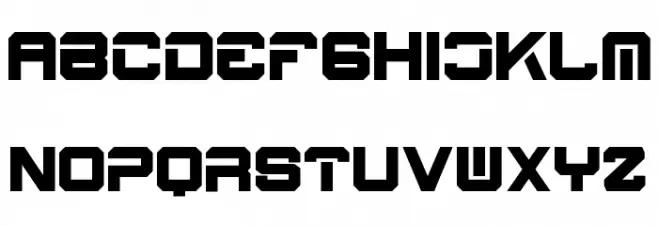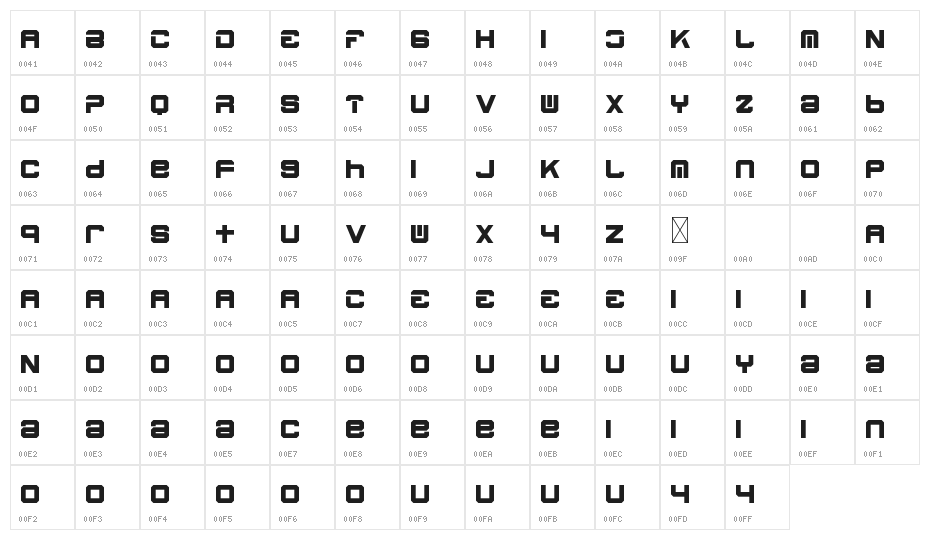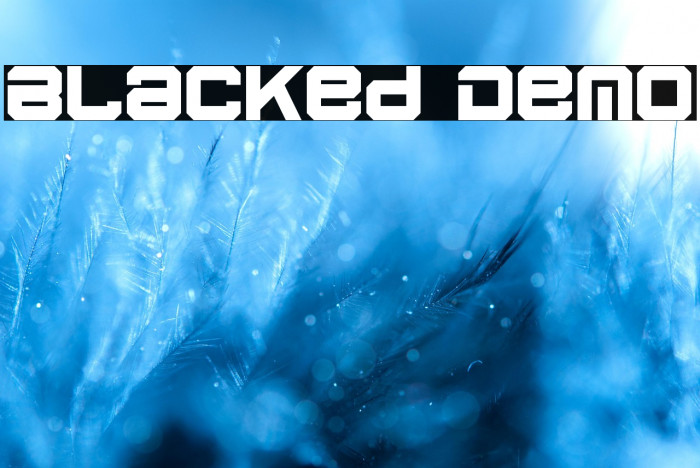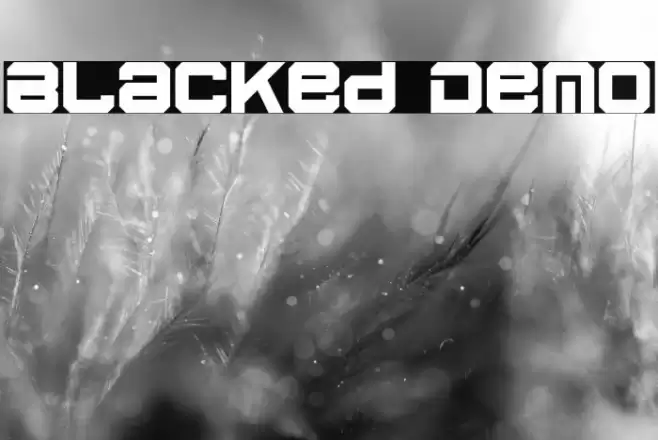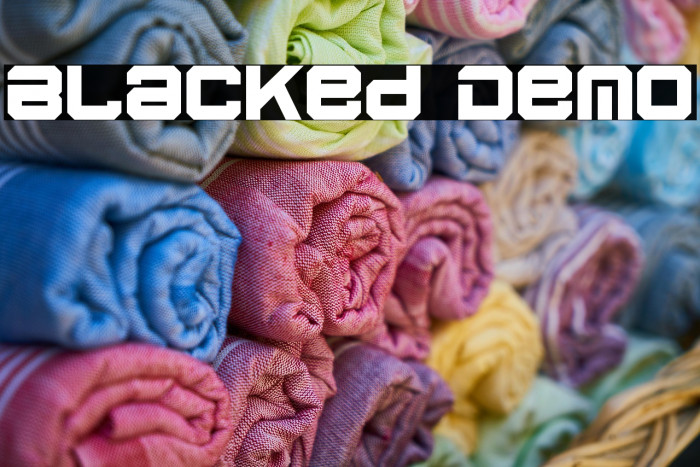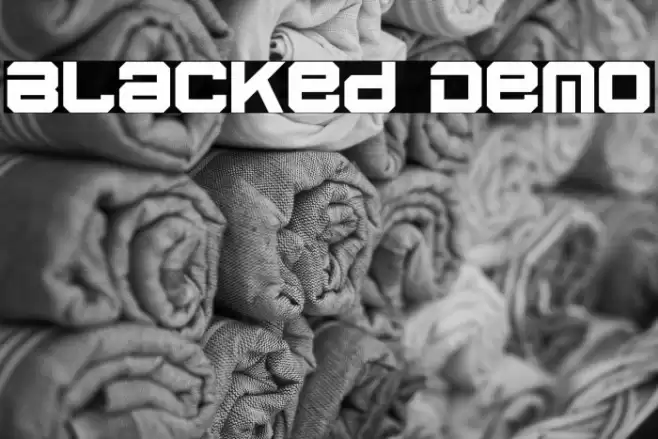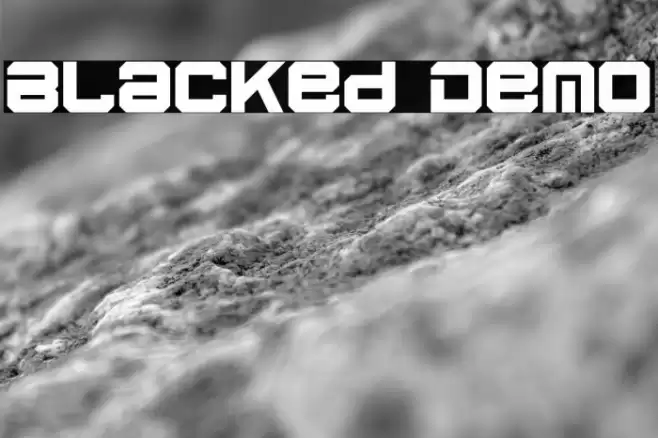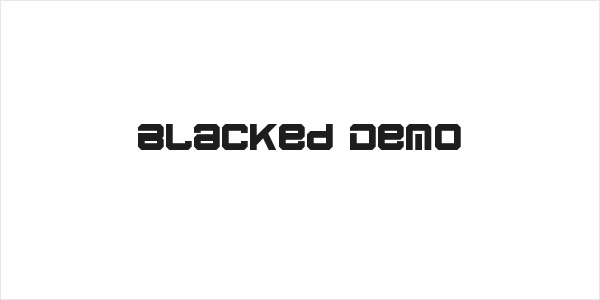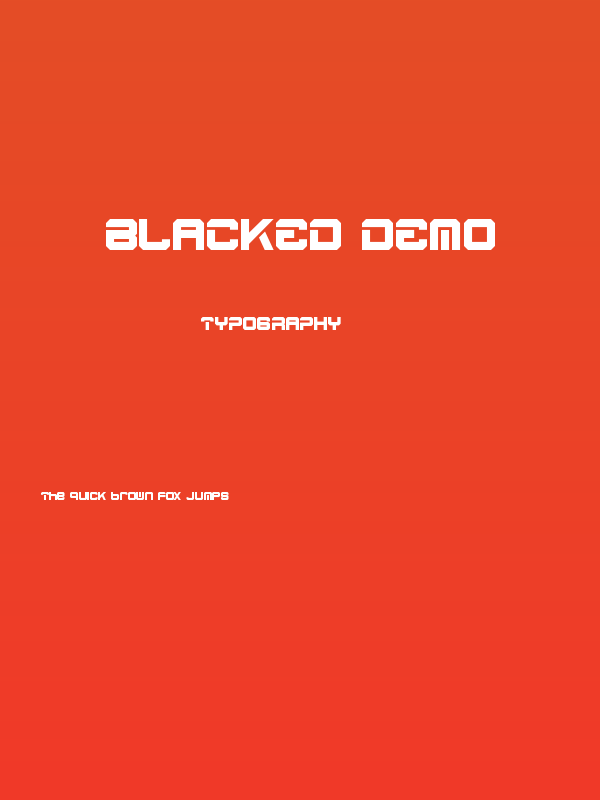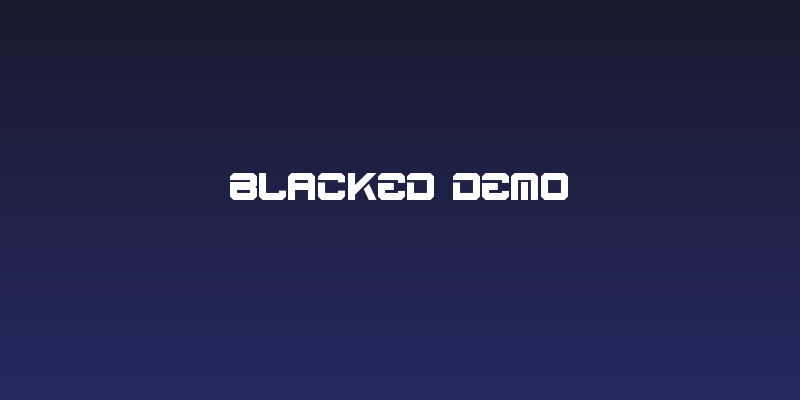
Blacked Demo Font
Blacked Demo Description
This font features a bold, geometric design with a futuristic and industrial feel. The characters are constructed with thick, block-like shapes, giving them a strong and robust appearance. The angular edges and uniform stroke width contribute to its modern and mechanical aesthetic. The uppercase and lowercase letters maintain a consistent style, with the lowercase mirroring the uppercase in form and structure. Numbers and special characters follow the same design principles, ensuring a cohesive look across all glyphs. The font's distinct style makes it stand out, ideal for projects that require a bold and assertive typeface.
| Proposed Projects | Ideal for technology branding, video game titles, sci-fi posters, and industrial-themed designs. |